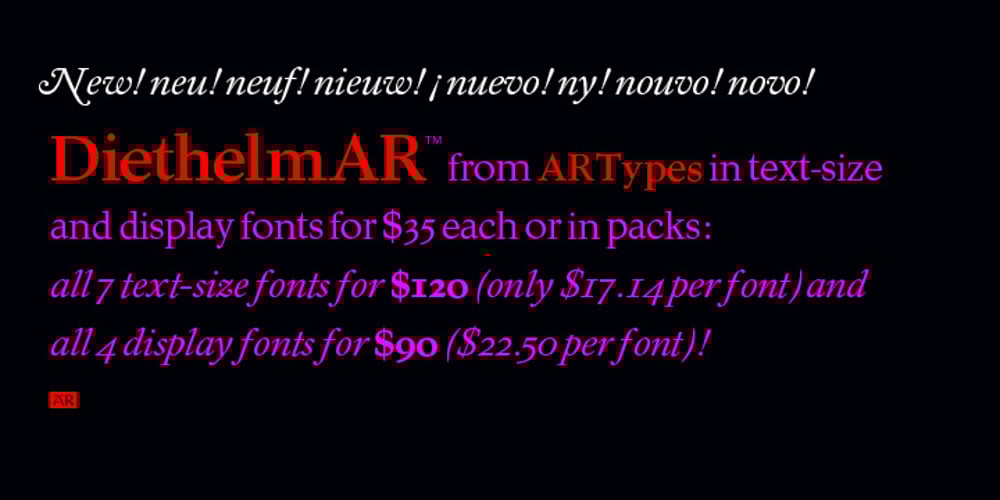
Diethelm AR Font Family was designed by published by ARTypes. Diethelm AR contains 11 styles and family package options. Based on the 10- and 36-point Diethelm-Antiqua types designed by Walter Diethelm and issued by Haas (Münchenstein) 1948-51. DiethelmAR™ series text-size fonts are based on the 10-point designs. Eastern European accents, swash capitals, alternative figures and small capitals are available. The DiethelmARd fonts are based on the 36-point (dreicicero) designs. OpenType fonts are available individually or in two packages: text fonts (with EE accents, small capitals) and display fonts.